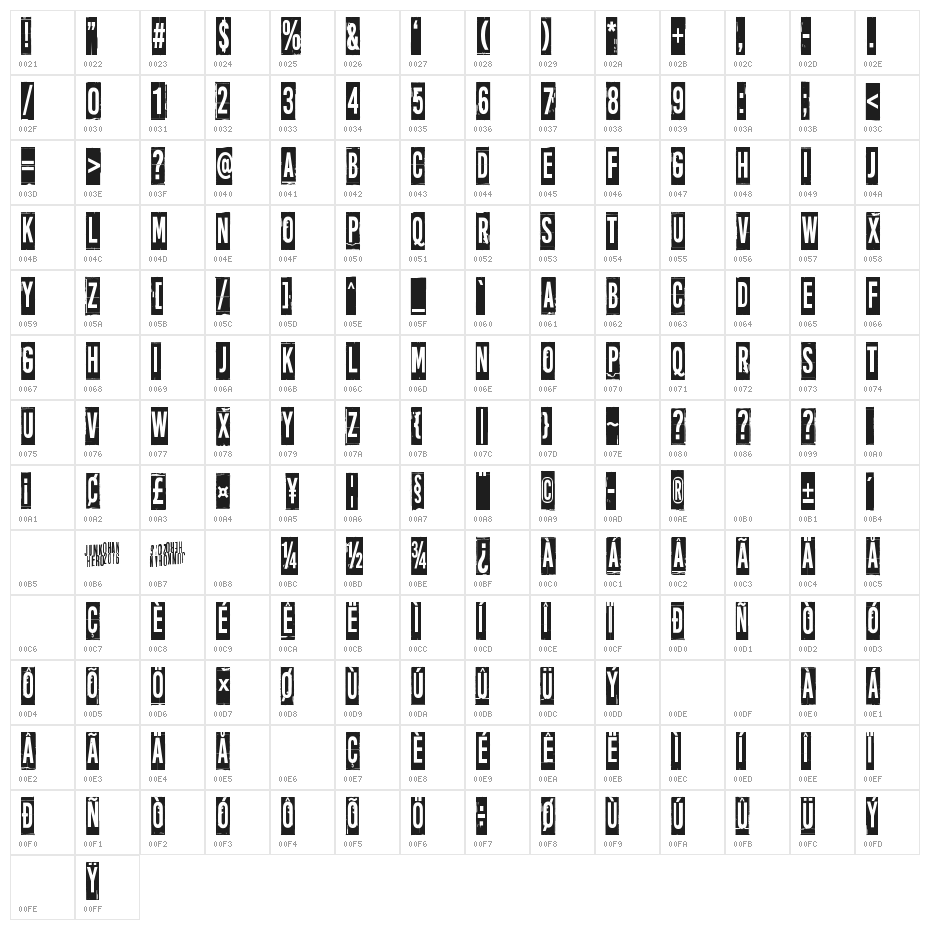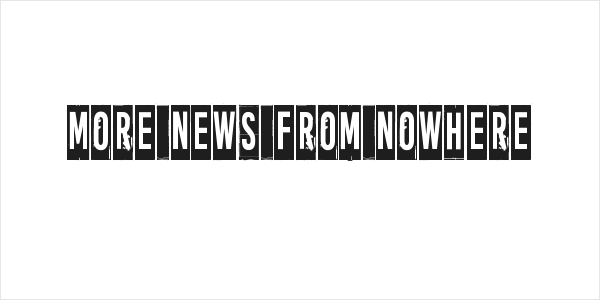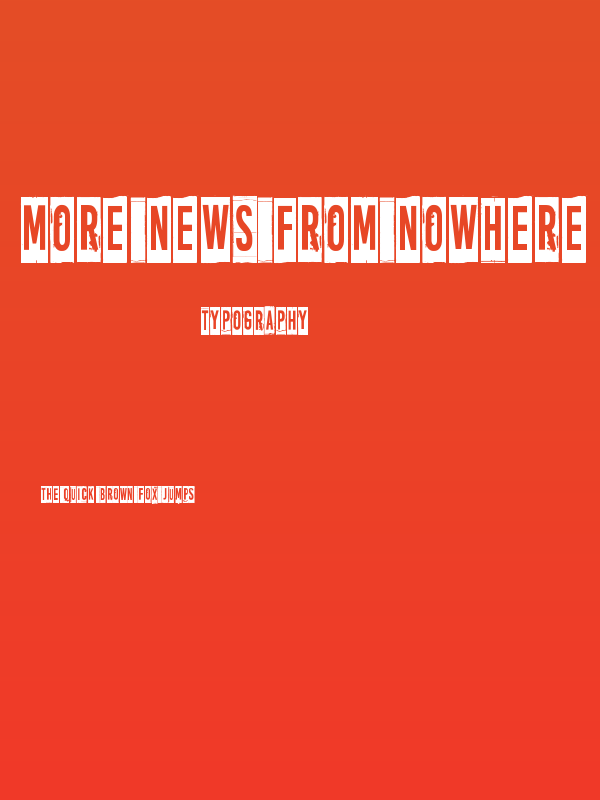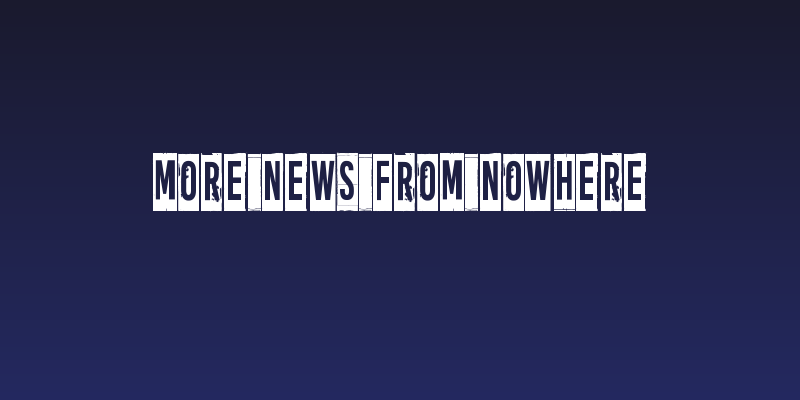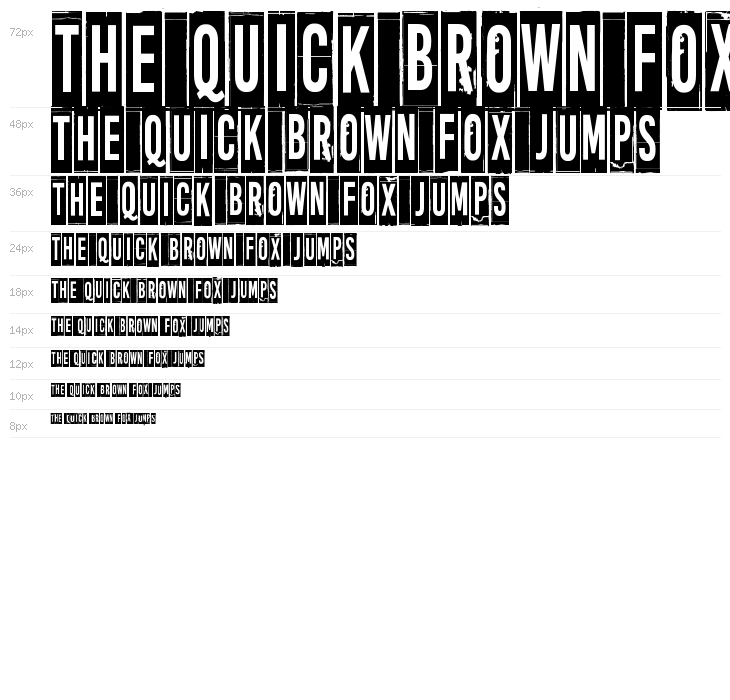
More news from nowhere Font
More news from nowhere Description
This font features a bold, distressed style with a strong, impactful presence. Each character is encased in a rectangular block, giving it a stencil-like appearance. The letters are uppercase and evenly spaced, with a uniform height that creates a cohesive look. The distressed texture adds a rugged, vintage feel, reminiscent of old signage or industrial prints. The numbers and special characters follow the same design, ensuring consistency across all elements. This font is ideal for projects that require a bold statement or a retro aesthetic.
| Proposed Projects | Perfect for posters, album covers, branding for vintage-themed products, or any design requiring a bold, eye-catching typeface. |